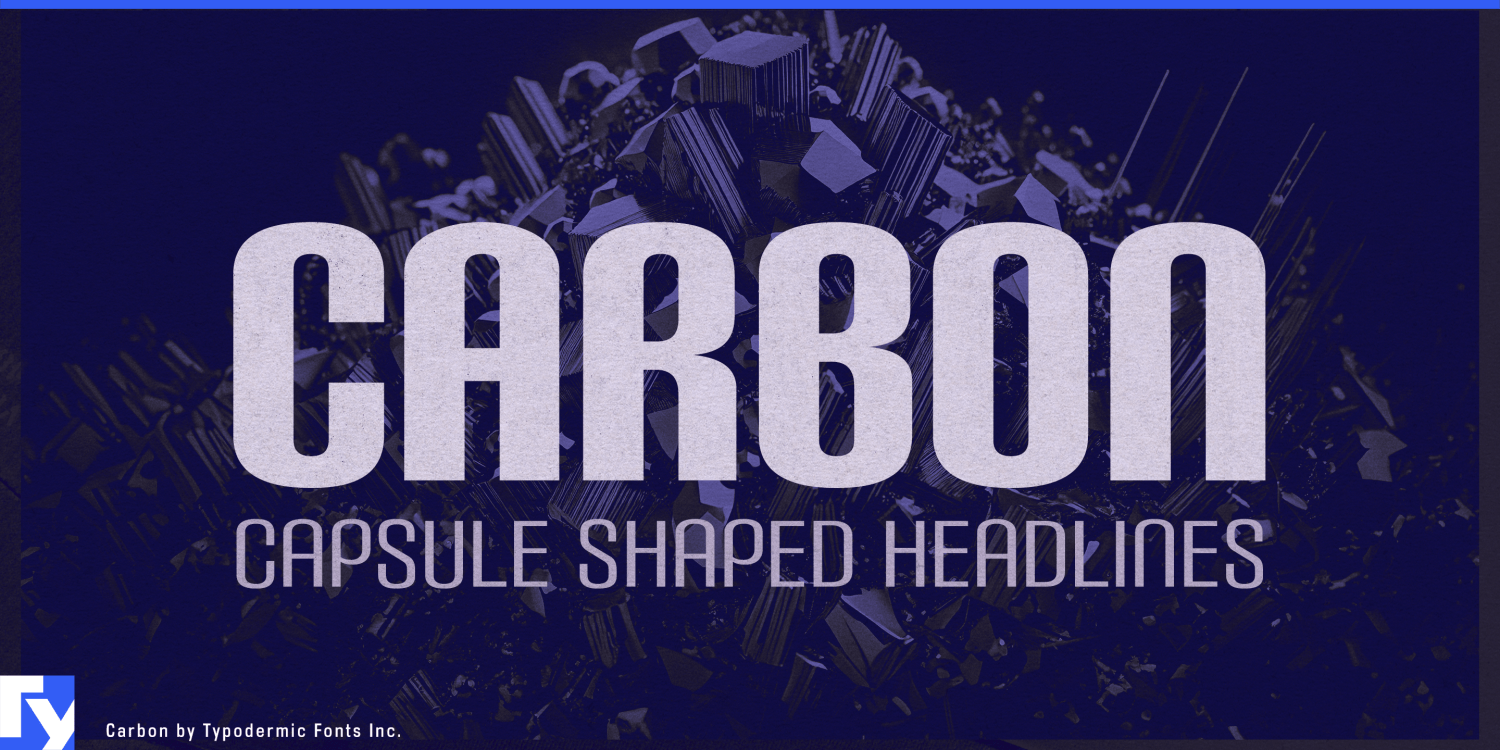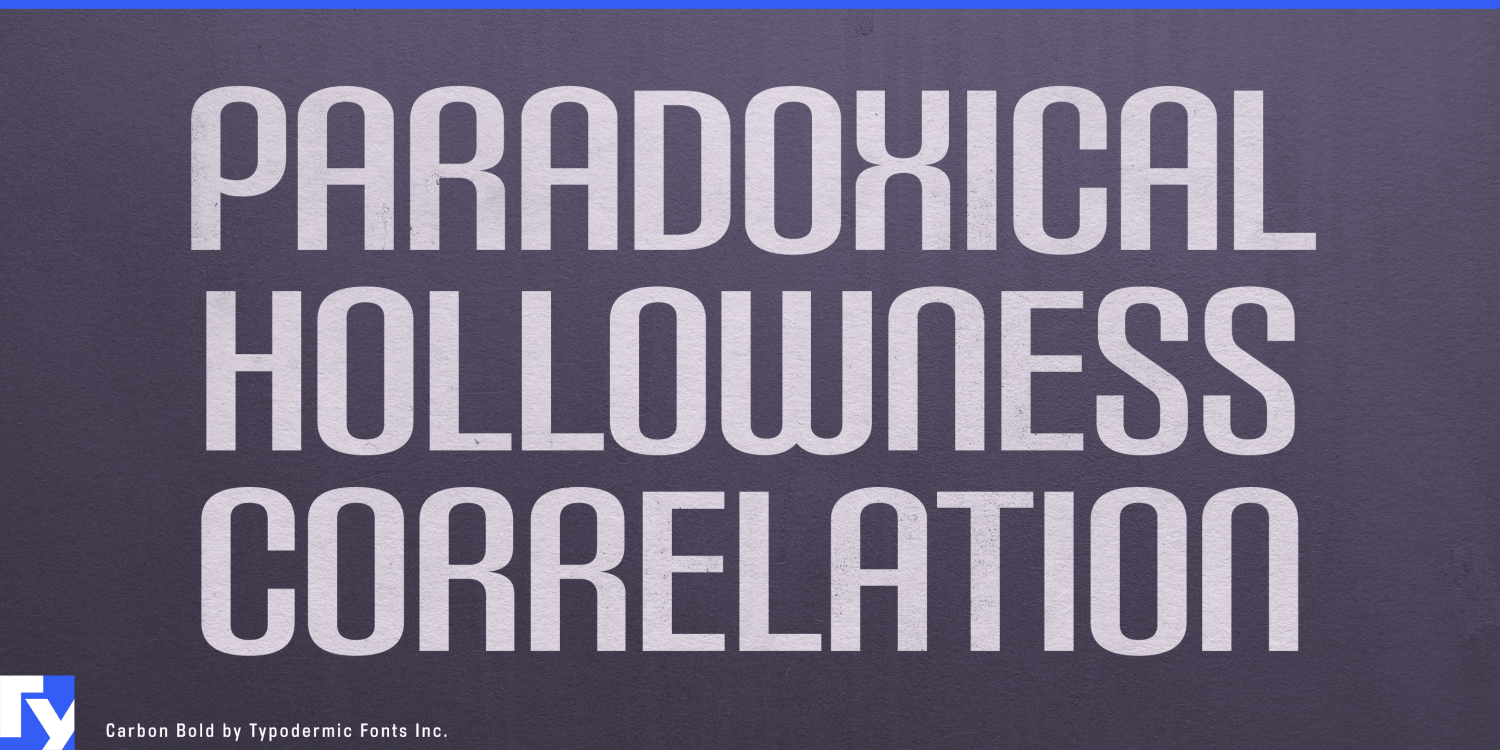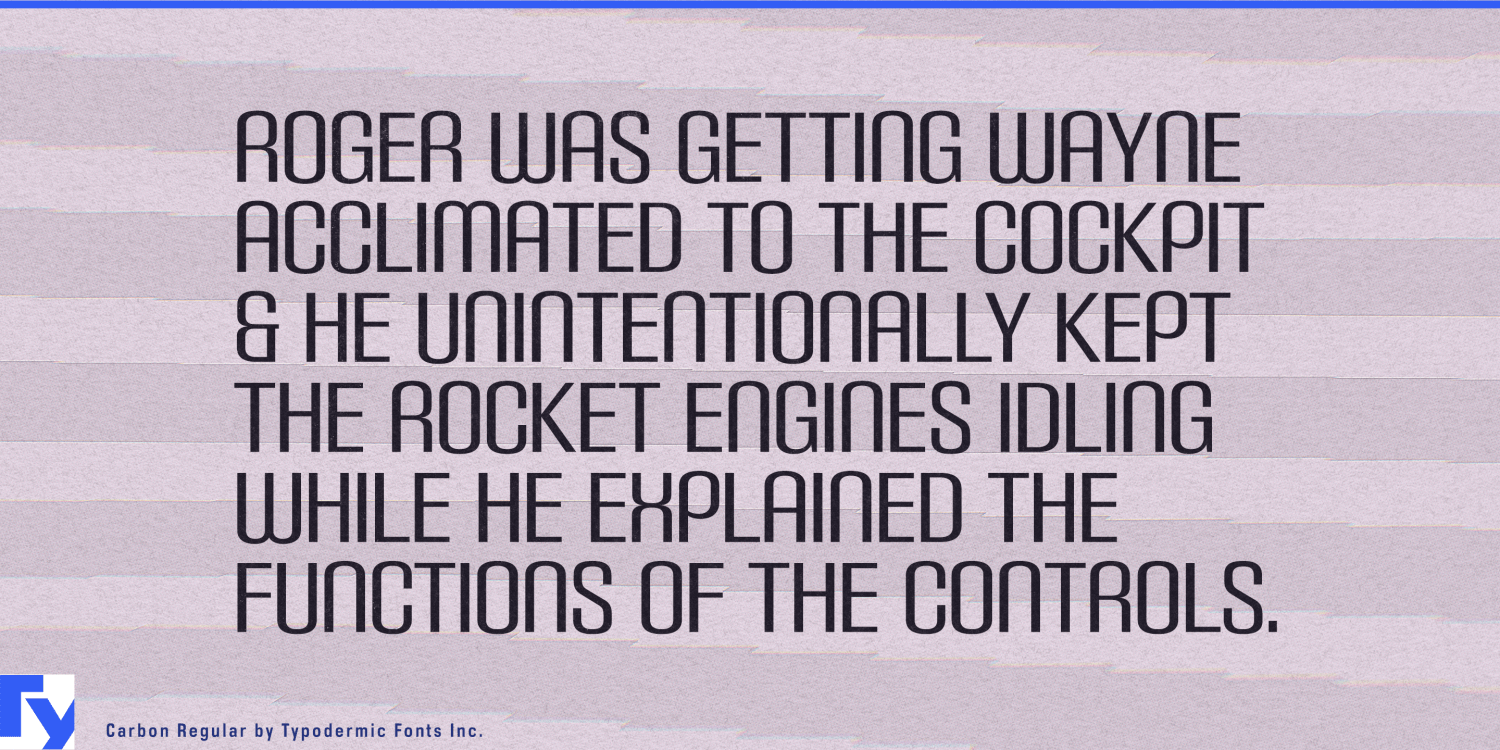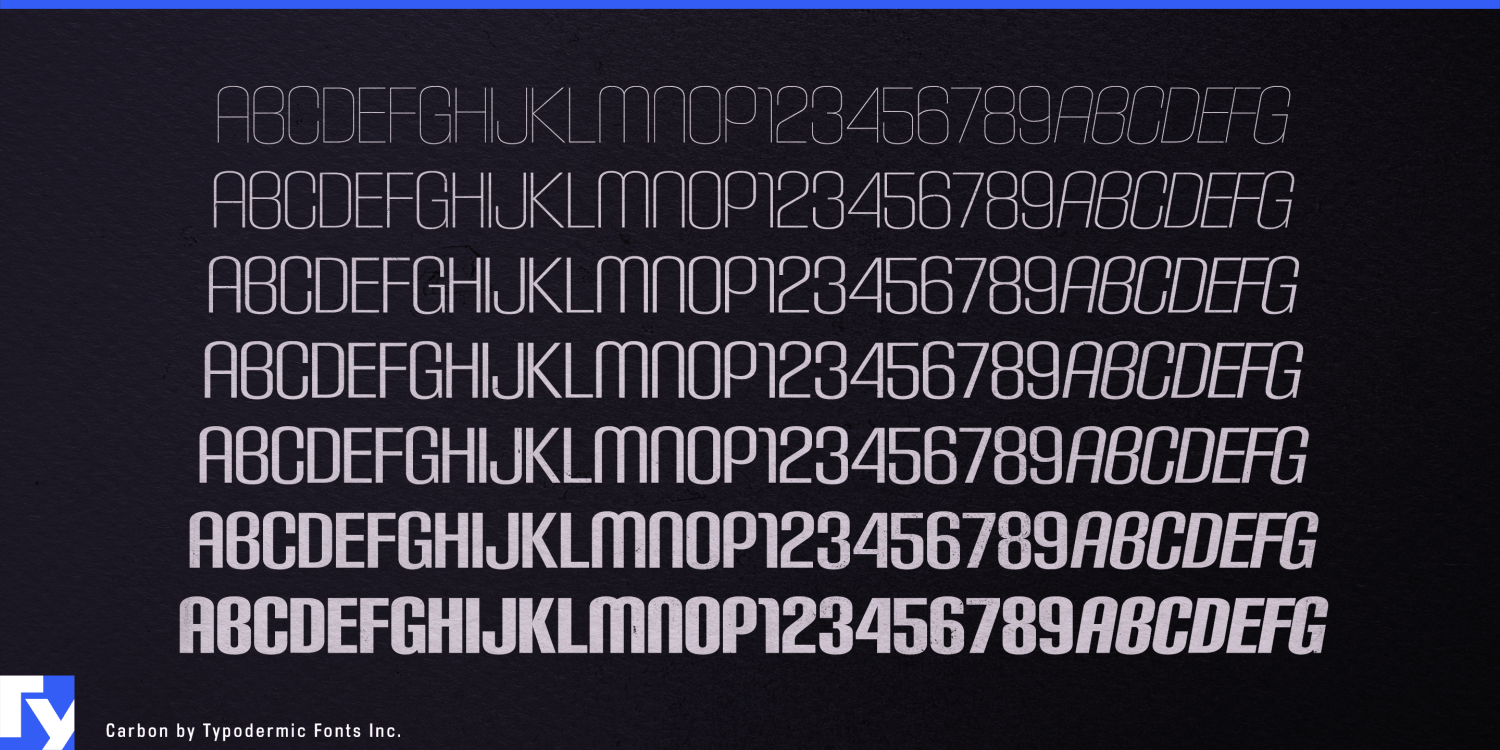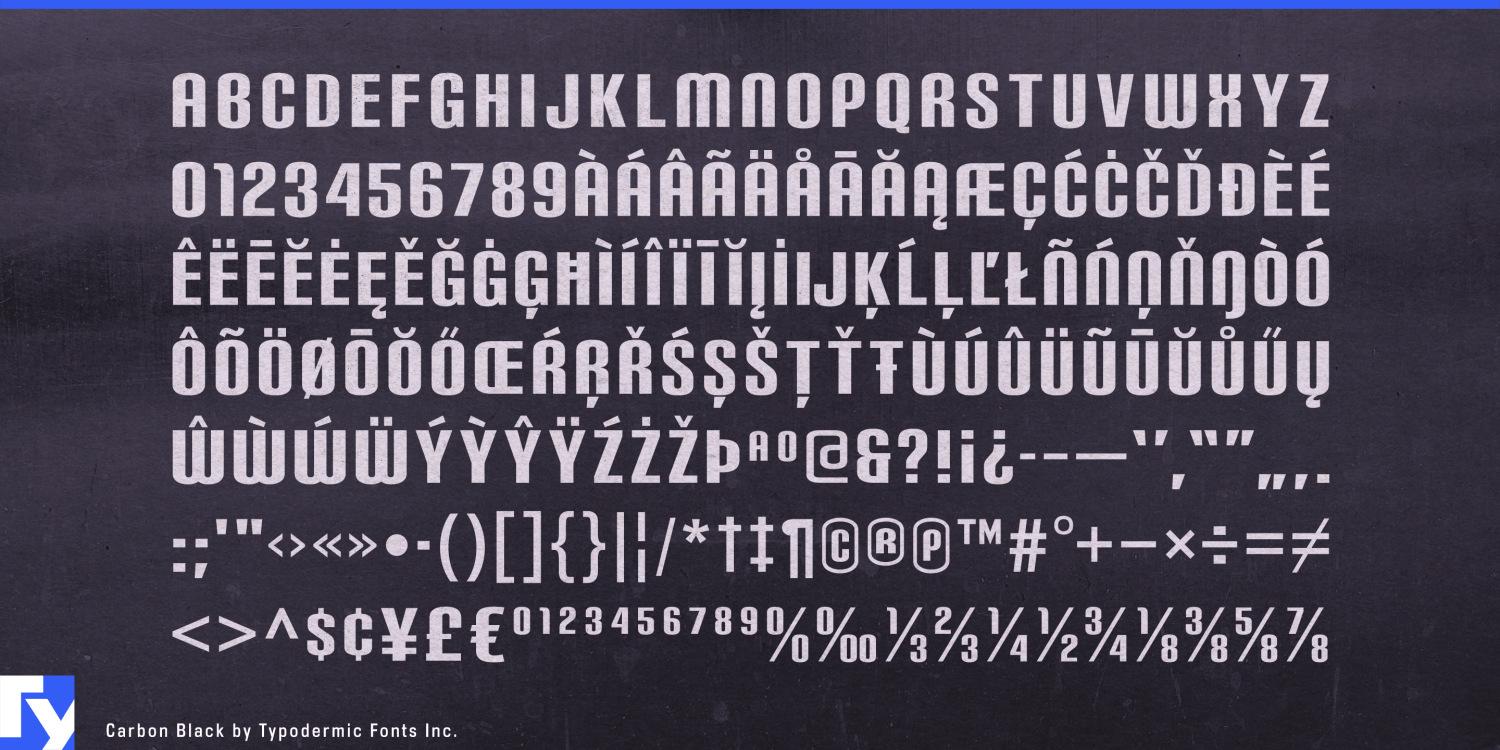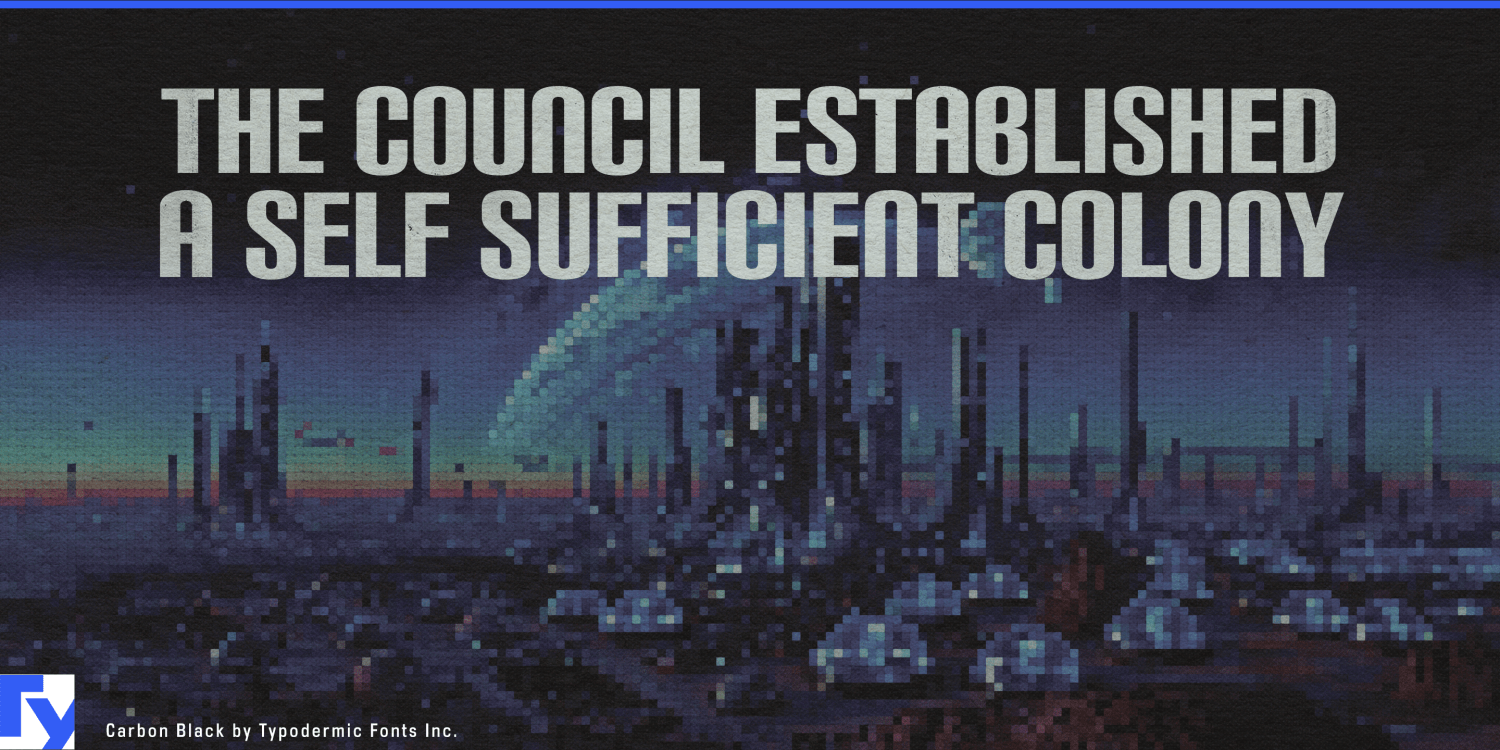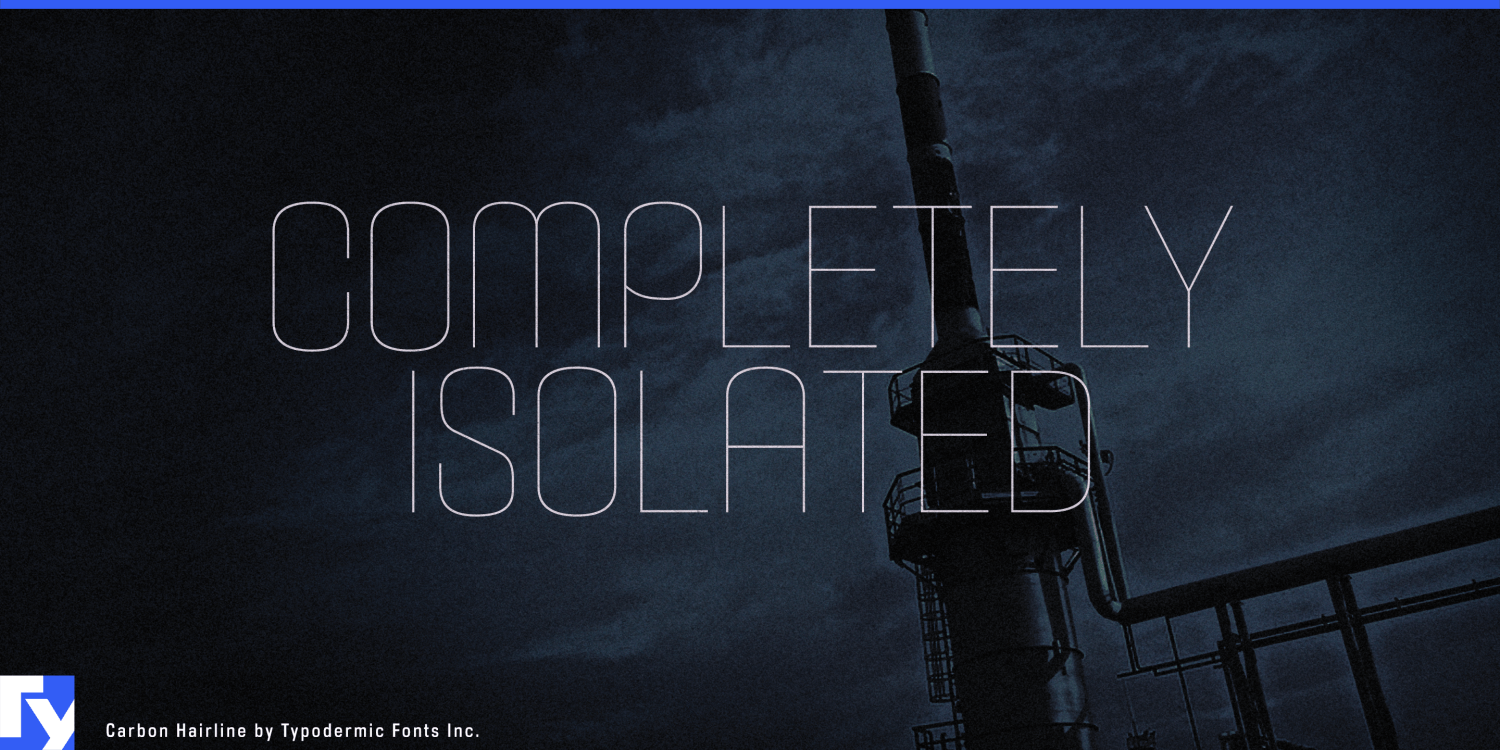
Carbon
The recurring element is an elongated capsule, a flat-sided rounded form that reappears throughout the alphabet wherever the construction allows it. Combined with Carbon’s unicase forms, this creates an unusually consistent vertical rhythm. At lighter weights the structure becomes fine and diagrammatic; at the heavy end, the same modules turn into dense slots and pillars. The result feels manufactured rather than decorated.
That makes Carbon especially well suited to advanced materials. Carbon-fiber bicycle frames, aero wheelsets, composite body panels, performance helmets, racing seats, lightweight robotics components, engineered polymers, ceramics, and coatings all need typography for model names, component graphics, technical brochures, specification cards, and trade-show displays. Carbon’s systematic construction suits products whose own performance depends on controlled material structure.
Performance cycling provides a particularly natural application. Frame names, fork graphics, rim decals, helmet ranges, power meters, component series, geometry charts, and launch campaigns all have to work across narrow, curved, and highly visible surfaces. Carbon can provide delicate technical information in its lighter styles and substantial product names in its heavier ones without resorting to the usual slanted racing typography. Carbon Phyber can be introduced selectively when a woven-composite association is useful.
Battery technology and electrification extend the same idea into graphite processing, conductive materials, electrode systems, cell manufacturing, battery recycling, and energy-storage research. Carbon can carry technology names, research-report titles, factory graphics, conference displays, and technical diagrams while retaining a direct connection to engineered structure.
The lighter weights also suit scientific instrumentation: materials-testing systems, spectroscopy equipment, environmental sensors, imaging hardware, and laboratory automation. Model names, fascia graphics, diagrams, and conference material can use the repeated rounded modules almost like a visual notation system.
Carbon’s name also gives it a literal contemporary role around carbon capture, emissions monitoring, low-carbon manufacturing, carbon accounting, and industrial decarbonization. It does not claim environmental virtue; it simply gives these subjects a distinctive display vocabulary.
Carbon works best where technology is physical: a laminate, frame, cell, sensor, instrument, component, or industrial process. Its letters look as though they were built from a repeatable set of parts, allowing the family to move naturally between advanced materials, performance equipment, laboratory hardware, and emerging energy systems.